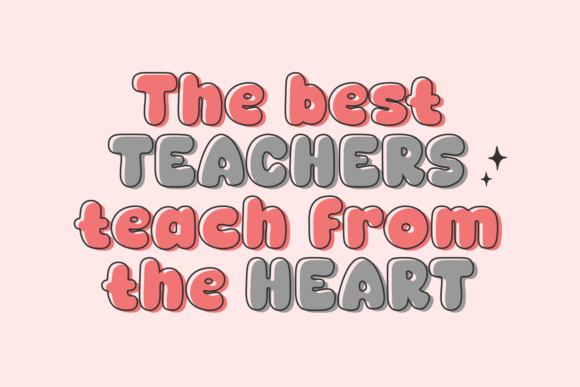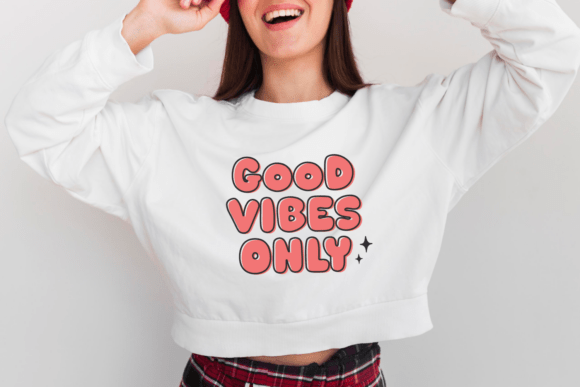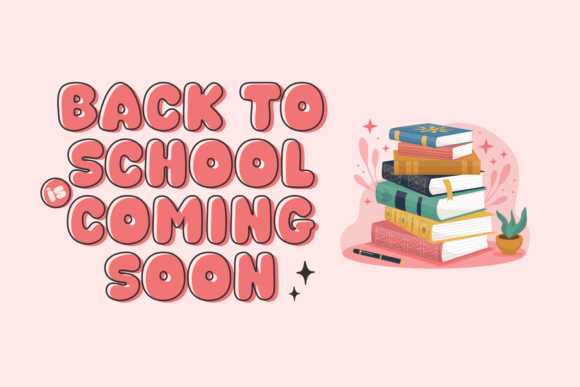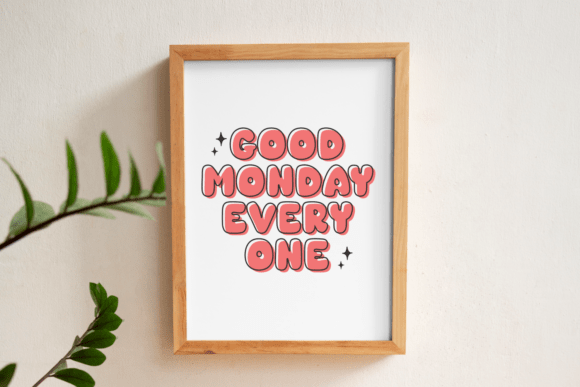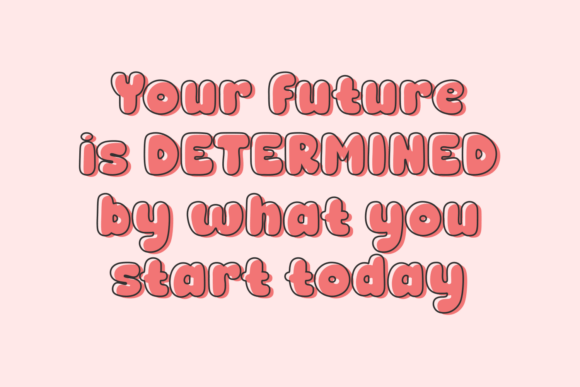
Introduction to Magic Friends Font
Have you ever stumbled upon the perfect design element, and suddenly, your creative project is transformed from ordinary to extraordinary? For designers, this moment is pure magic. It’s the spark that sets off a chain reaction of inspiration, leading to innovative ideas and captivating visuals. For many, that spark comes in the form of the enchanting Magic Friends Font – a whimsical bubble font that ignites imagination and adds a touch of personality to any design.
This delightful font is more than just a design resource; it’s a game-changer. Its unique blend of gentle contours and bold demeanor makes it an ideal choice for creating standout posters, attention-grabbing social media graphics, and unforgettable branding. Whether you’re working on a personal project or a client’s campaign, the Magic Friends Font is sure to bring a smile to your face and a touch of magic to your designs.
Key Features of Magic Friends Font
- Unique characteristics include playful and whimsical design elements, making it perfect for children’s designs, educational materials, and family-friendly projects.
Honest Review: Magic Friends Font
As a designer, I’m always on the lookout for high-quality design resources to elevate my creative projects. Recently, I had the chance to try out the Magic Friends Font, and I must say, it’s been a great addition to my design toolkit.
- Unique and playful design: The Magic Friends Font is perfect for projects that require a whimsical touch.
- Limited character set: The font is missing some essential characters, which can be a limitation for more complex projects.
- No bold or italic variations: While the regular font is charming, it would be great to have more weight options for added emphasis.
Overall, the Magic Friends Font is a fun and creative design resource that’s perfect for projects with a playful vibe. While it has some limitations, it’s still a valuable addition to any designer’s collection.